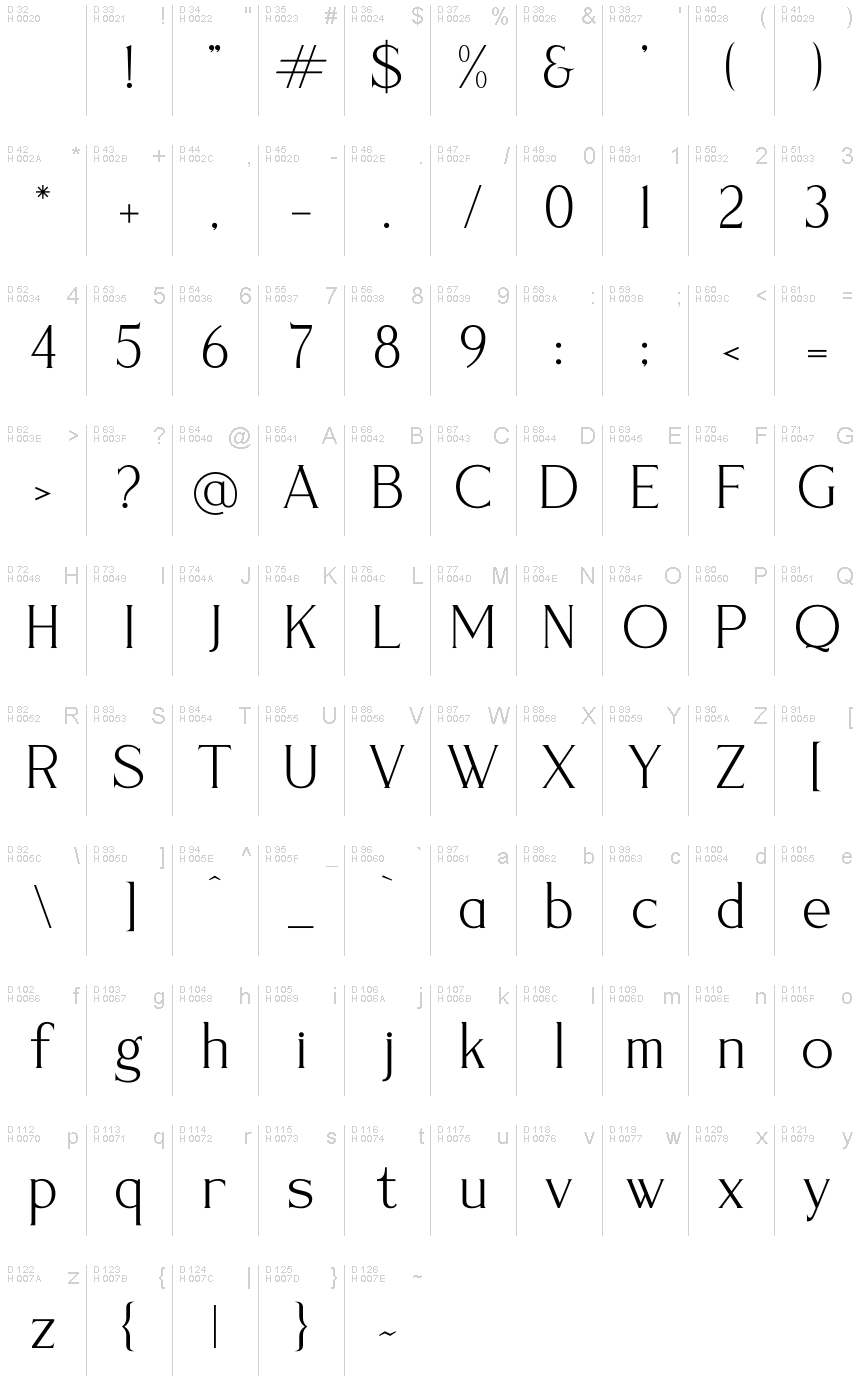
Madeilon Duskille
Madeilon Duskille, a serif font crafted by Storytype Studio, exudes a captivating blend of elegance and timelessness. Its refined letterforms and delicate serifs evoke a sense of sophistication, inviting the reader to immerse themselves in the narrative it weaves. The font's subtle, yet impactful, personality lends itself effortlessly to a wide range of design applications, from editorial layouts to premium branding. Madeilon Duskille's versatility and alluring aesthetic make it a compelling choice for designers seeking to elevate their projects with a touch of refined sophistication.
This font's adaptability shines through its ability to seamlessly complement various design styles, from classic editorial pieces to modern brand identities. Its refined elegance and timeless appeal make Madeilon Duskille an excellent selection for luxurious product packaging, high-end publications, and discerning signage. Storytype Studio's meticulous craftsmanship ensures that Madeilon Duskille delivers a refined and cohesive visual experience across digital and print mediums.